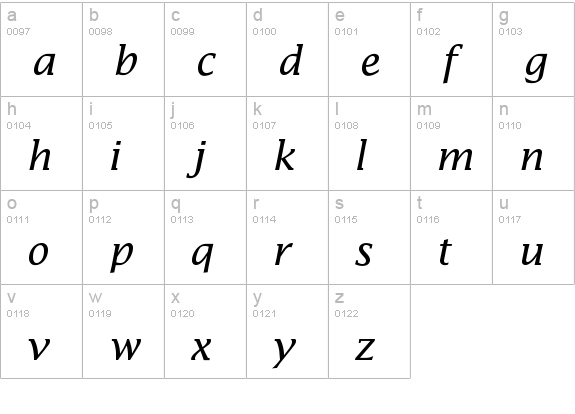
Lucida Italic Font Details
Lucida Italic is a distinctive, italic variant in the Lucida typeface family \xE2\x80\x94 well suited to design and typography projects.
Lucida Italic font is a timeless and elegant typeface that exudes sophistication and style. Its sleek and graceful design is perfect for adding a touch of refinement to any project. The italicized characters of Lucida Italic convey a sense of elegance and fluidity, making it an ideal choice for conveying a sense of sophistication. The best part is that Lucida Italic font is available for free download at FontsMarket.com. This means you can easily access this beautiful font and use it in your projects without any cost. With its versatility and classic appeal, Lucida Italic font is a must-have for designers looking to elevate their designs with a touch of elegance. Download it today and add a touch of class to your creations!